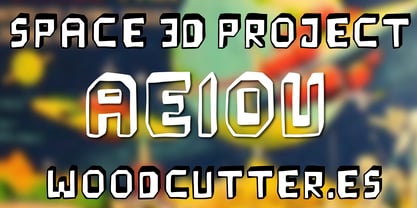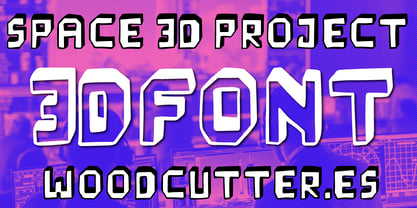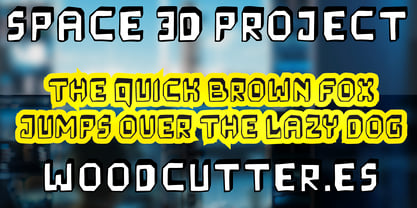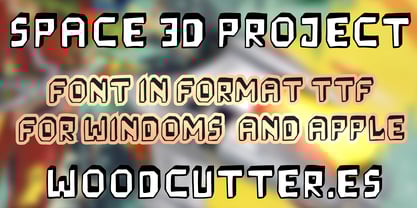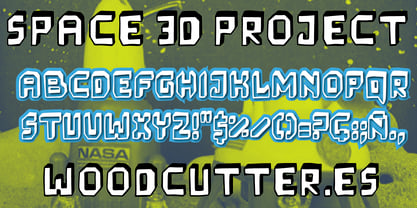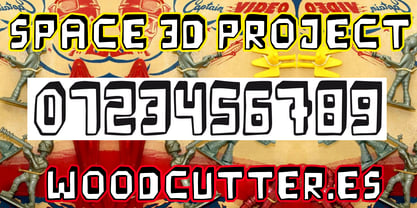
Space 3 D Project
by Woodcutter
The Space 3 D Project Font Family was designed by Jordi Manero and published by Woodcutter. Space 3 D Project contains 1 styles.
“Space 3D Project” is an uppercase typeface that stands out for its hollow letters with a unique three-dimensional effect. Each character features a shadow cast upward, giving it a spatial and futuristic touch. The design has a handcrafted finish with imprecise strokes that add personality and an artisanal feel. This font is perfect for creative projects seeking to combine a retro-futuristic aesthetic with a casual and dynamic style. Its bold and experimental appearance makes it an ideal choice for titles, posters, or designs related to space and science fiction.
About Woodcutter
Woodcutter is a Spanish graphic designer and typographer known for his work creating typefaces.Working on it since 2012In addition to being the creator of Fonts Woodcutter, he is dedicated to Illustration and design.As a typographer I have collaborated with brands like Gucci, And1, Netflix.Singers like Cristina Aguilera or the Manowar group.He is a specialist in Display Fonts, which are ideal for billboards, posters or covers.